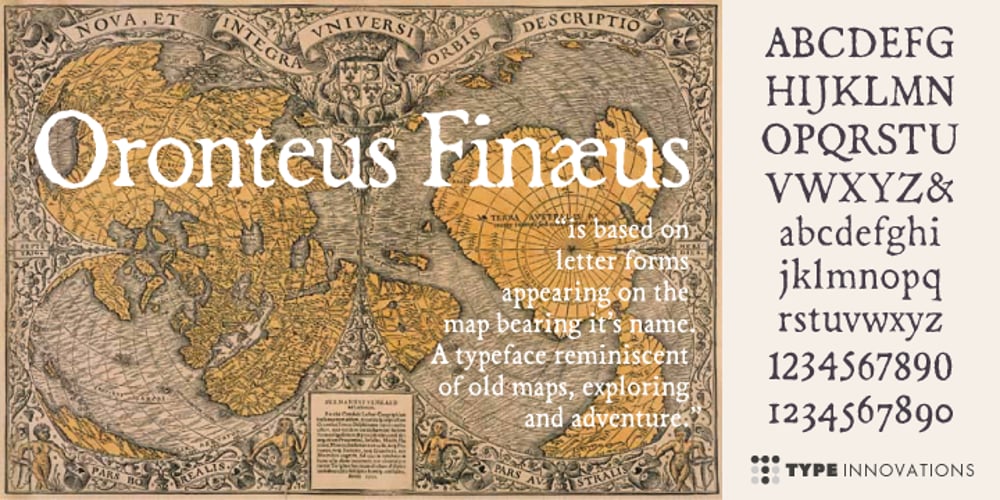
Oronteus Finaeus
Oronteus Finaeus font
Oronteus Finaeus Font Family was designed by published by Type Innovations. Oronteus Finaeus contains 2 styles and family package options. The Oronteus Finaeus map, published in 1531, shows Antarctica before it was “discovered” and how it looked ice-free. There is still much controversy about the validity of the map, but I was intrigued by the letter forms which appeared on the map itself. I used the typeface appearing on the map as a visual guide in developing my design for Oronteus Finaeus regular and old style figures. I liked that it reminded me of old maps, exploring and adventure. Definitely oldish and roughish in character. This new font is perfect for all those old style and antique applications, or for that vintage typography look.